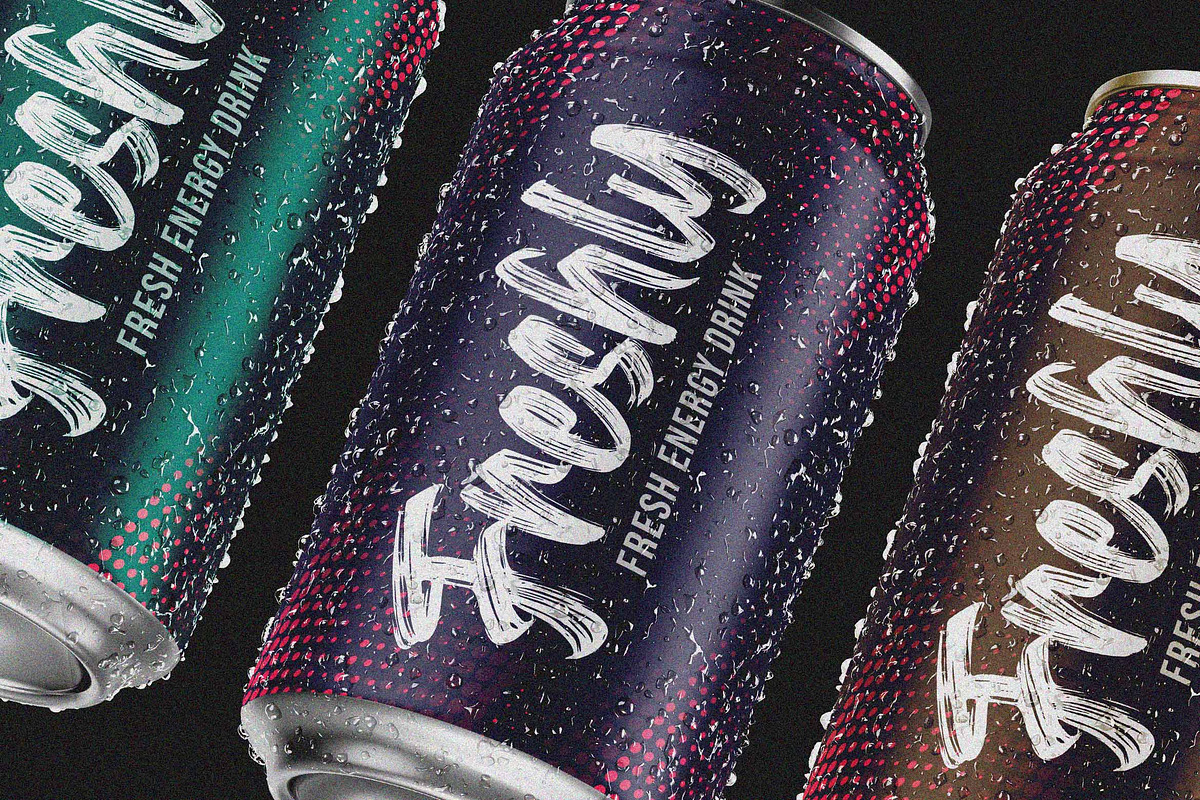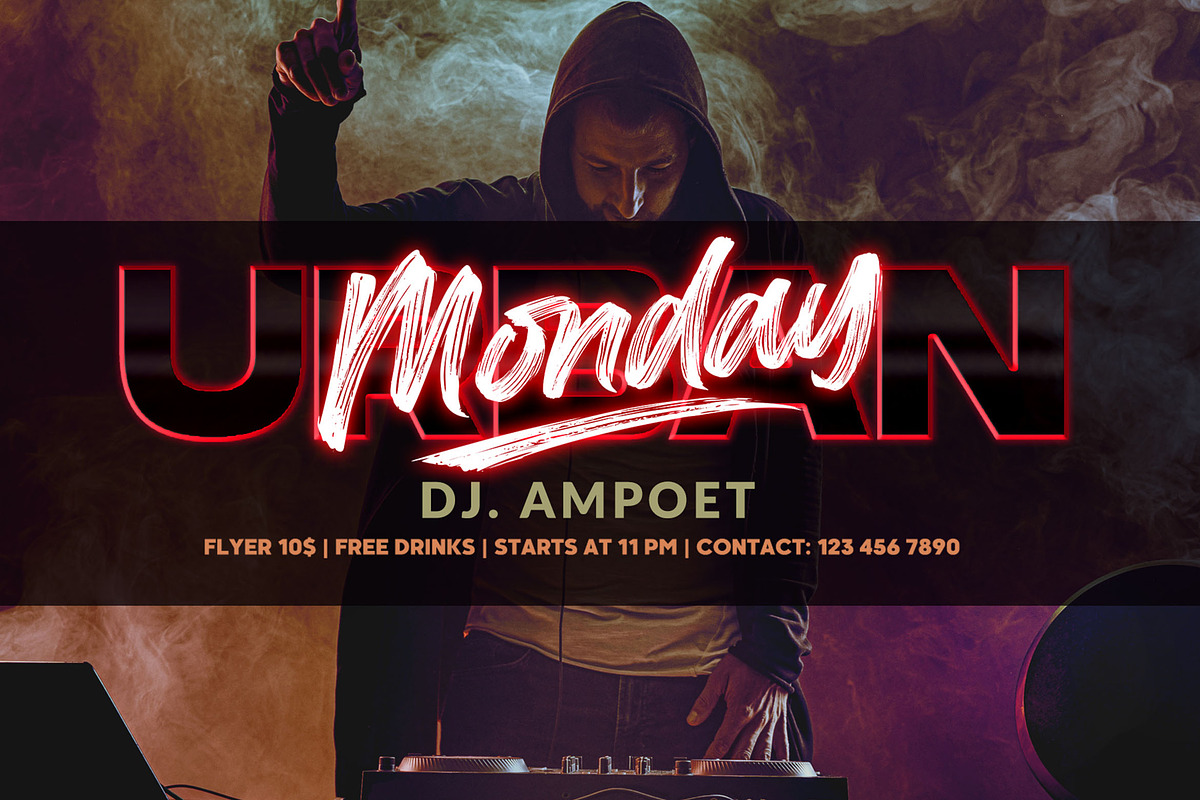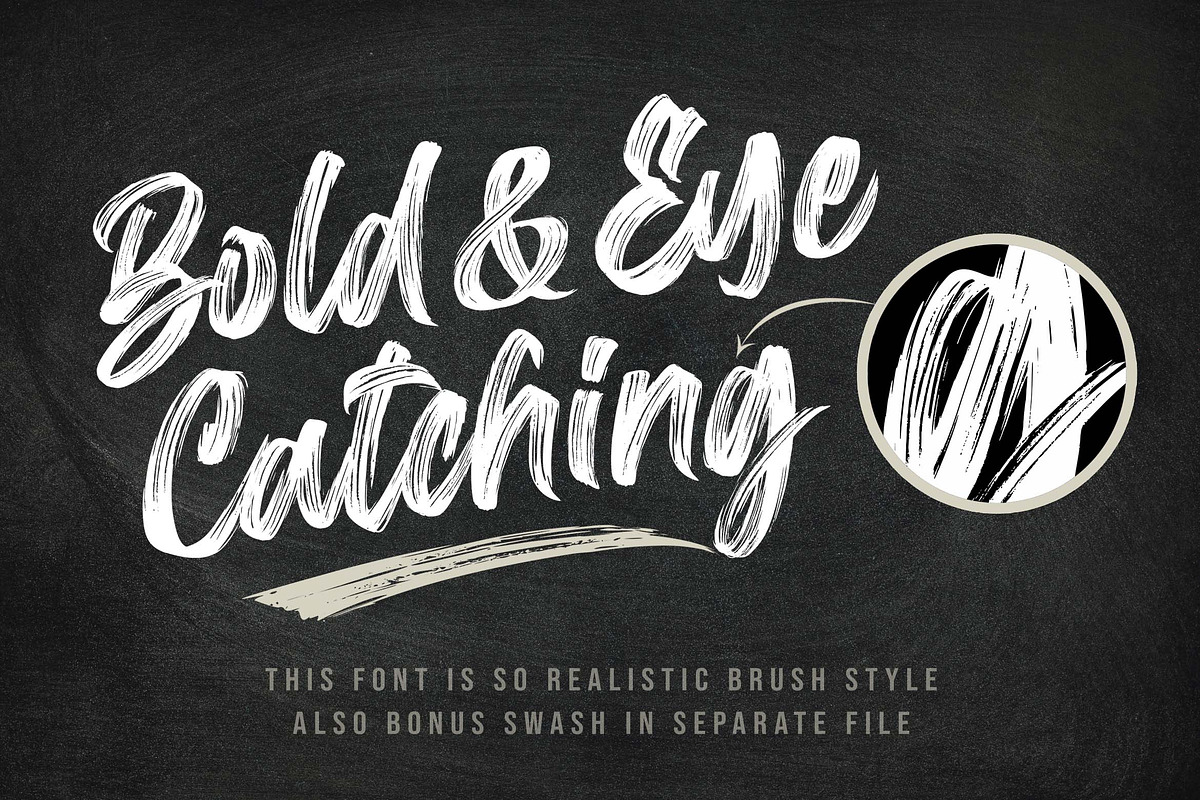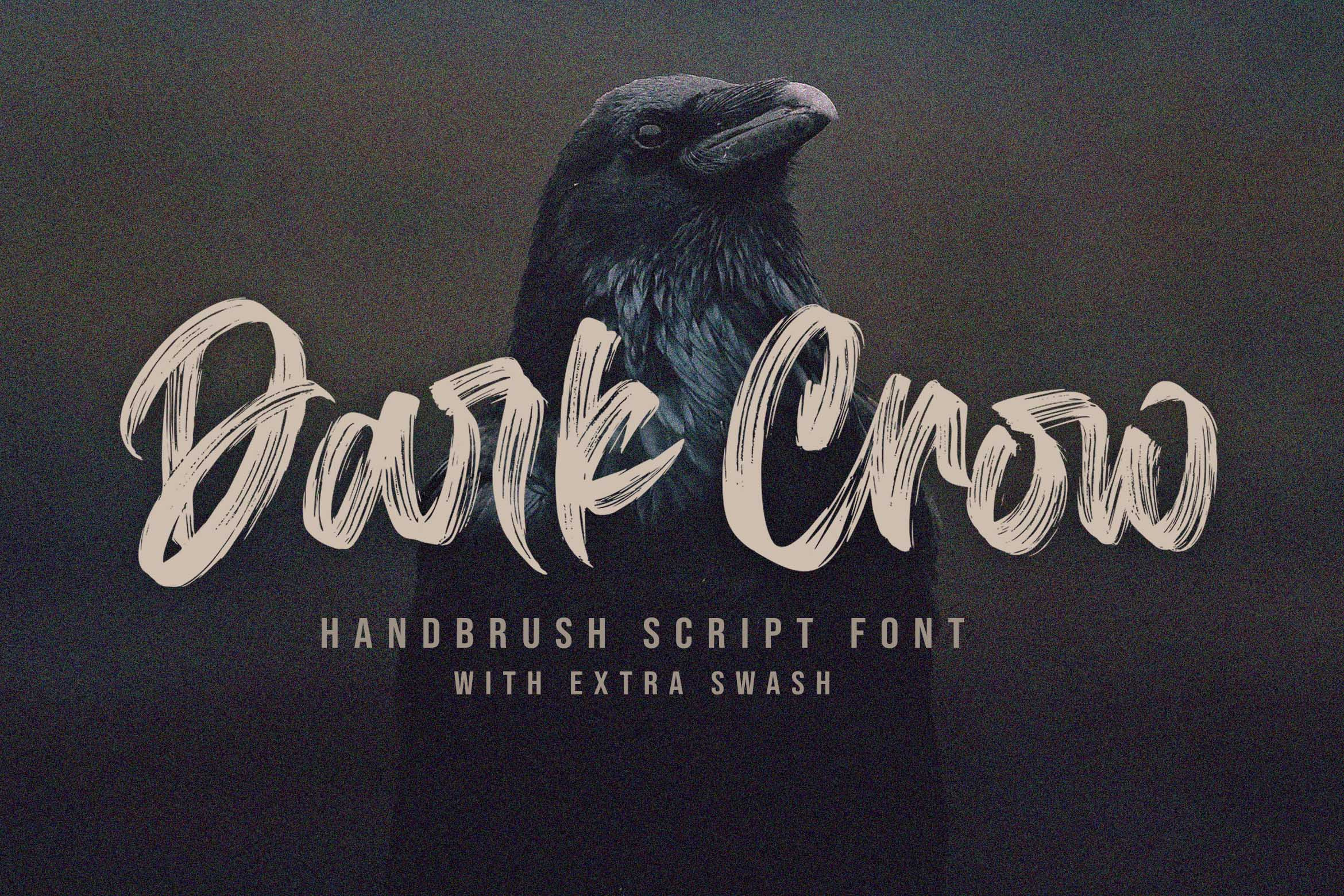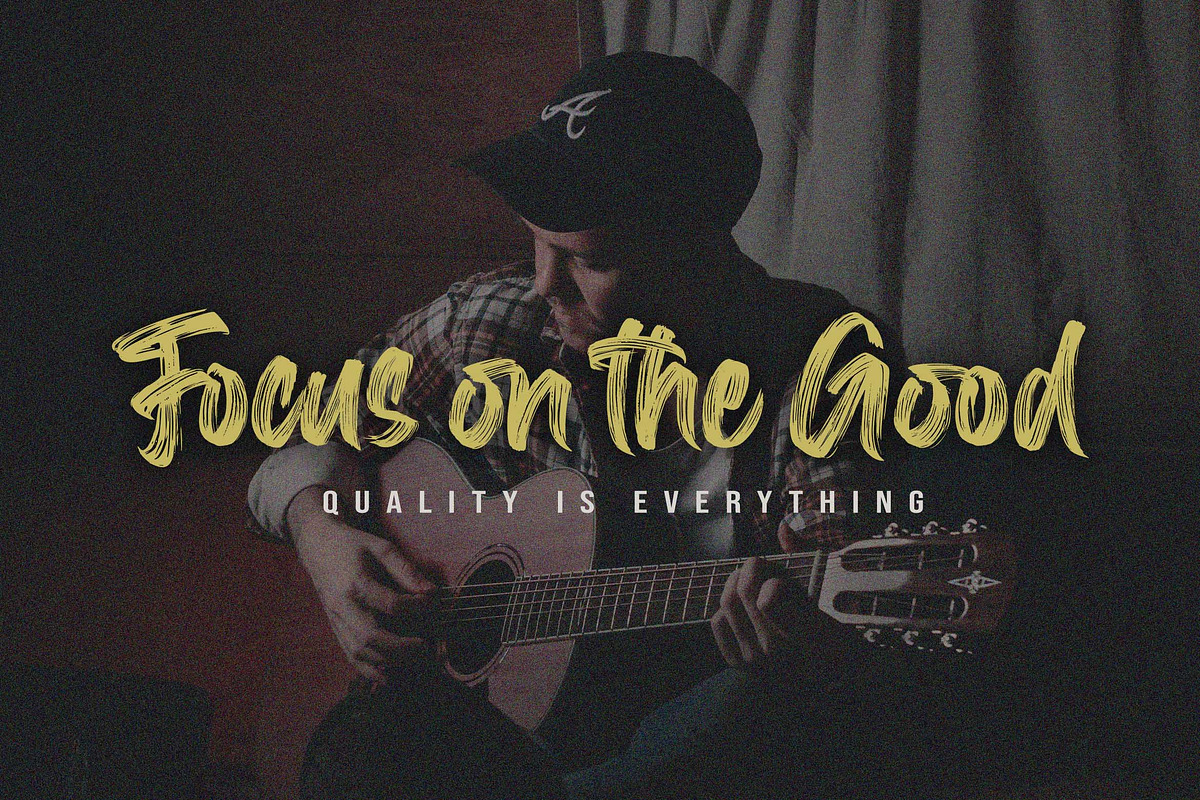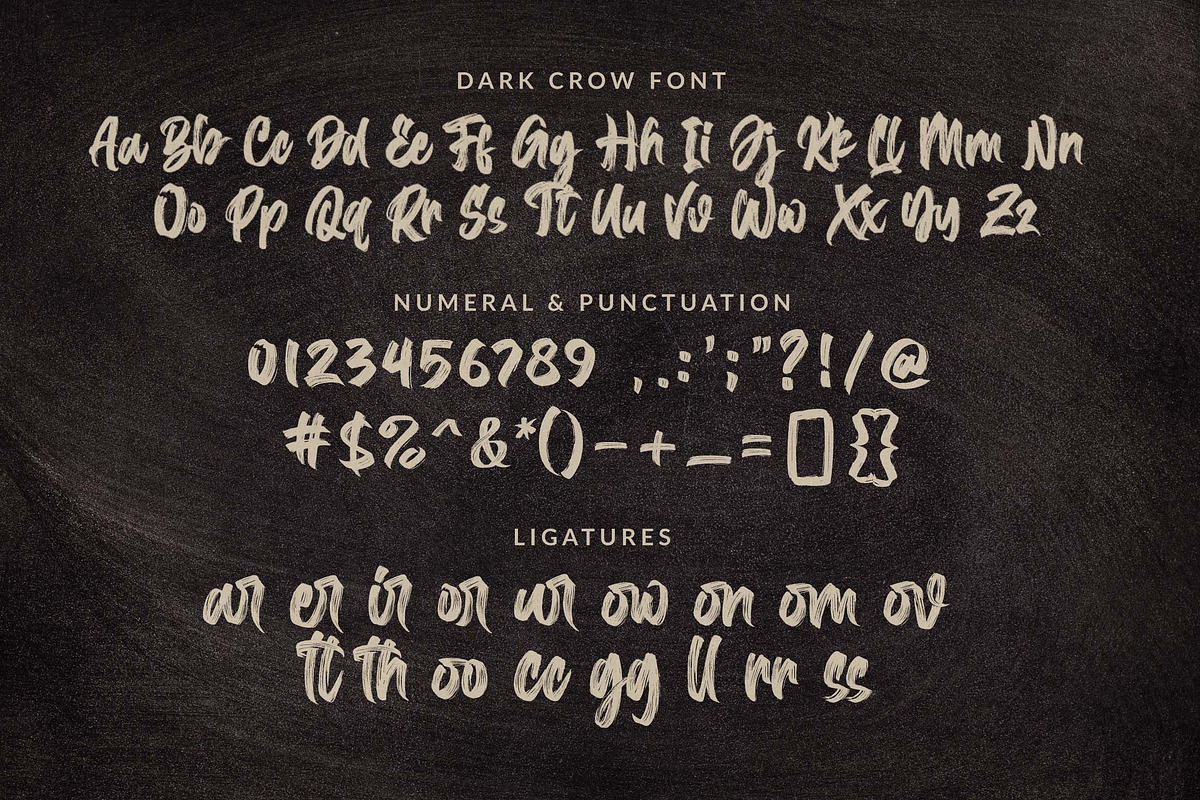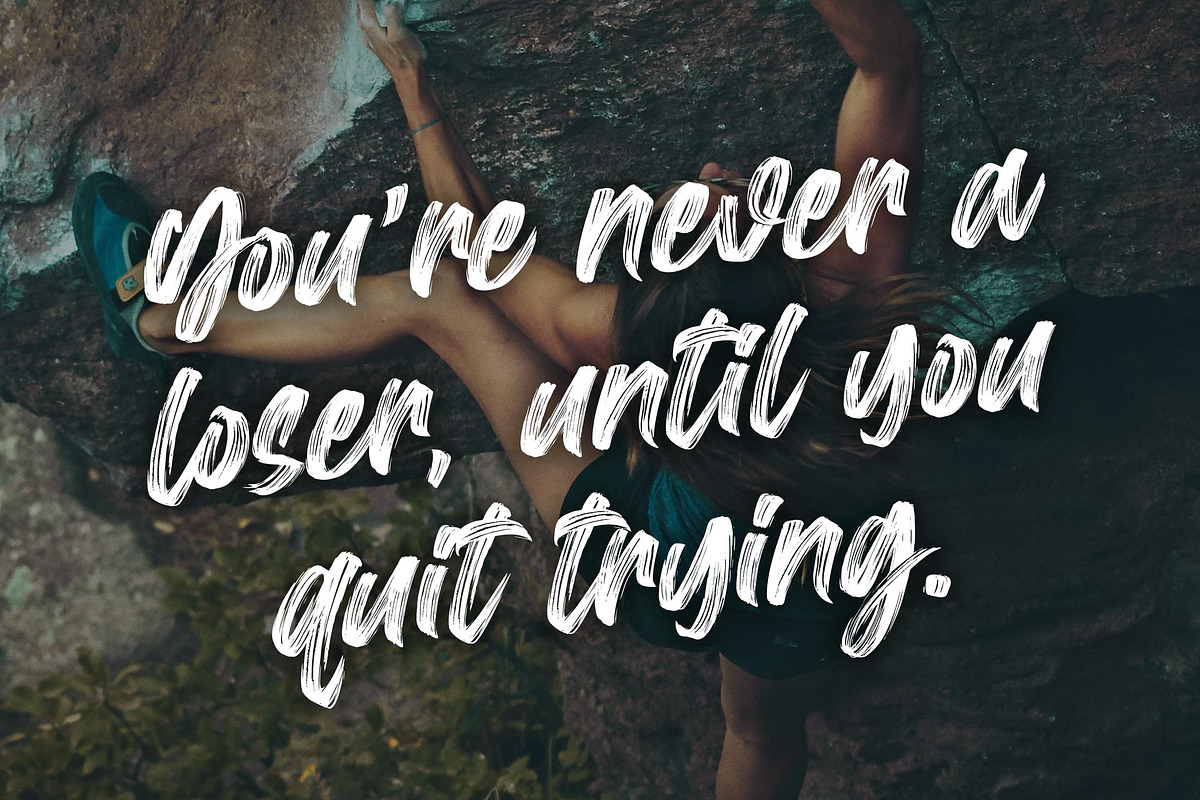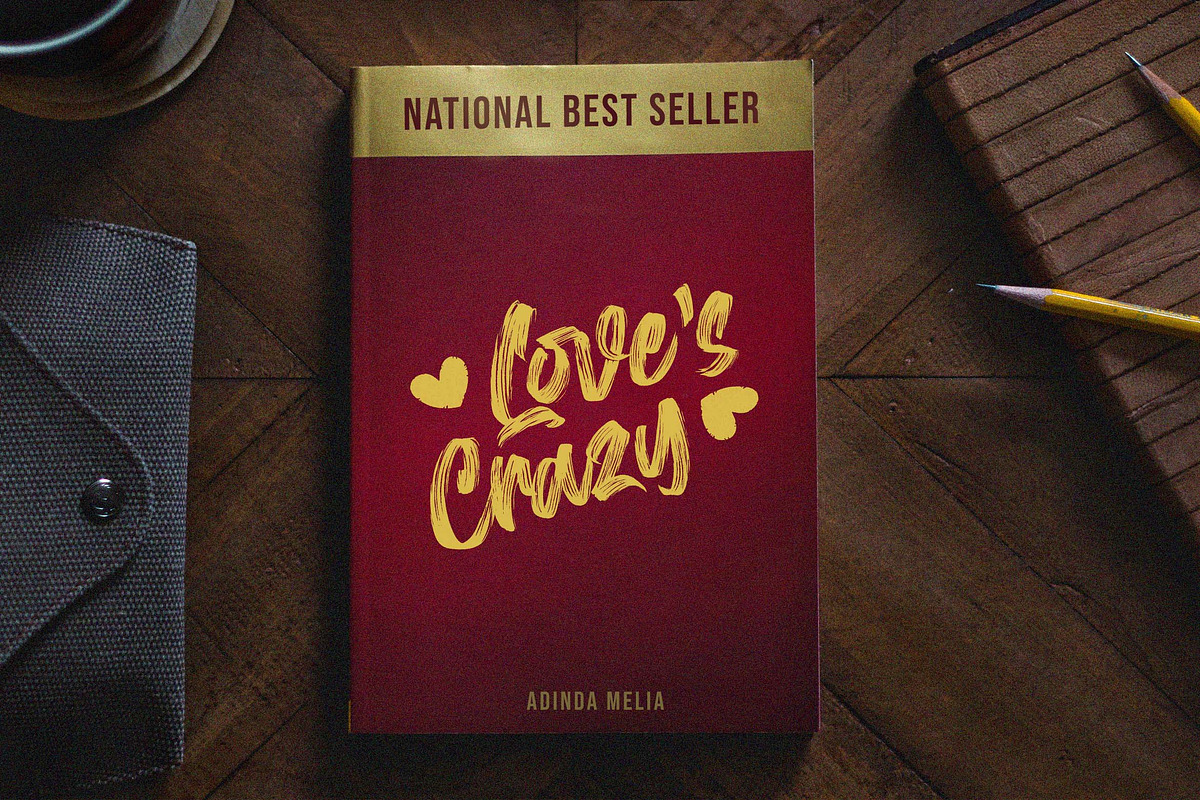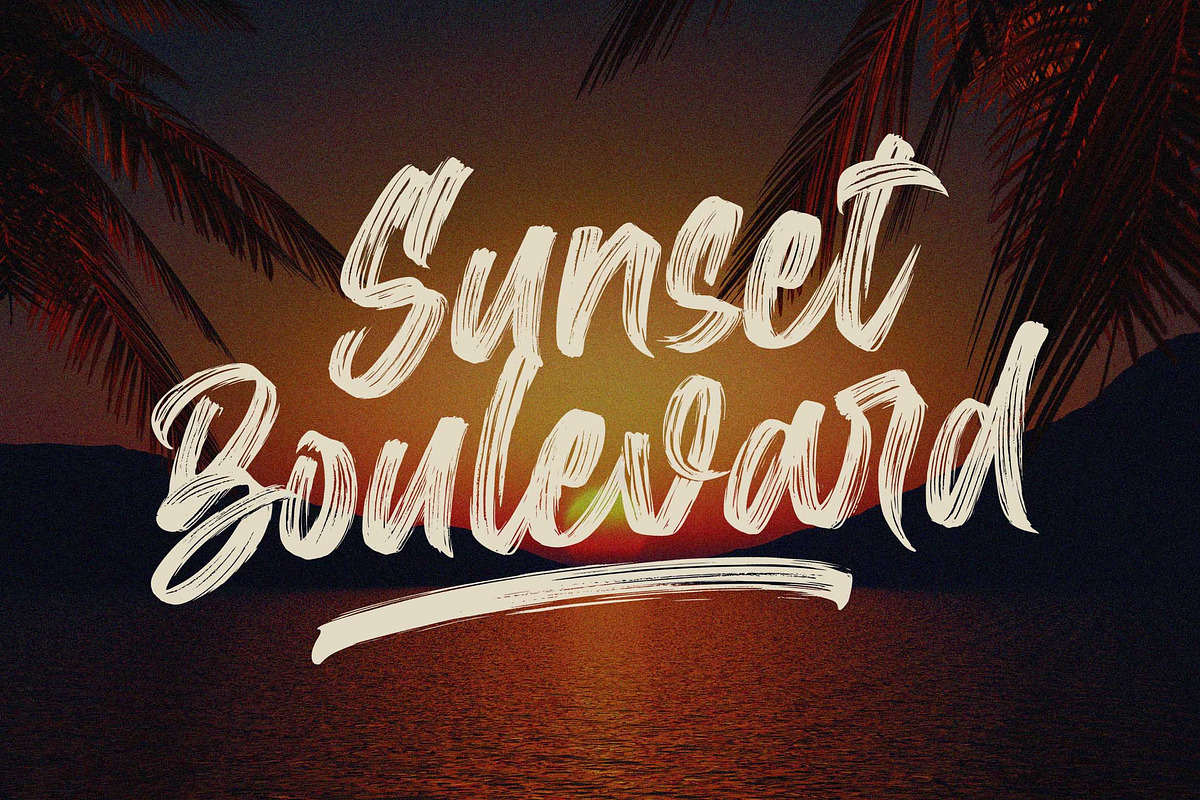
Dark Crow / Brush Font
Dark Crow font is a supercharged brush font style, street-wise brush font bursting with energy. With extra attention to quick strokes and sharp details. This font is perfect for challenging jobs, titles, t-shirts, websites, hoodies, clothing, headline, logotype, branding, advertising, event and various print and digital media with energy.